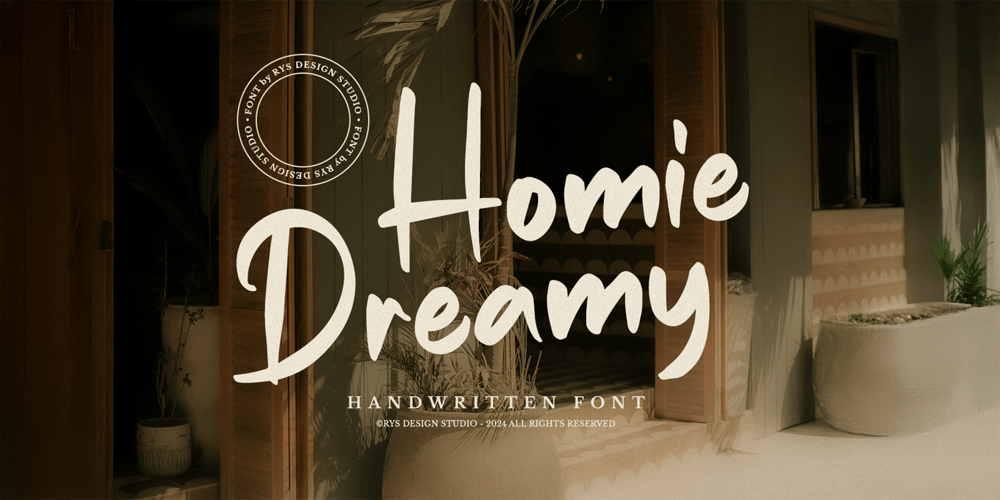
RYS Homie Dreamy Font Family was designed by Witoko Aji Laksono and published by RYS Design Studio. RYS Homie Dreamy contains 1 styles and family package options. Introducing RYS Homie Dreamy a handwritten fontHomie Dreamy is a charming handwritten font that brings a playful, authentic touch to your designs. This versatile font is perfect for a wide range of creative projects, from logos and branding to wedding invitations, merchandise, product packaging, and signatures. It’s also perfect for Valentine’s themes, menu designs, inspirational quotes, and skincare packaging. With its warm, friendly style, it’s an ideal choice for children’s books or any design that needs a personal, heartfelt feel.Let Homie Dreamy add a bit of joy, romance, and personality to your next project!